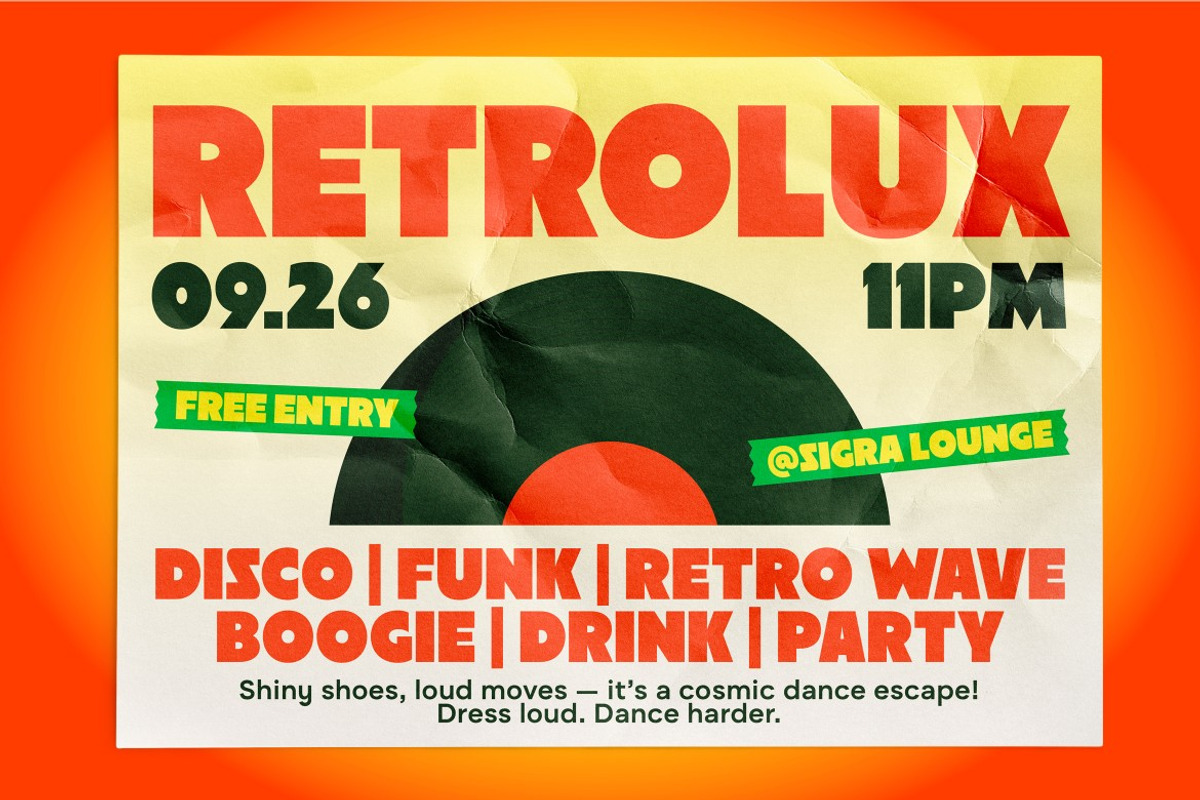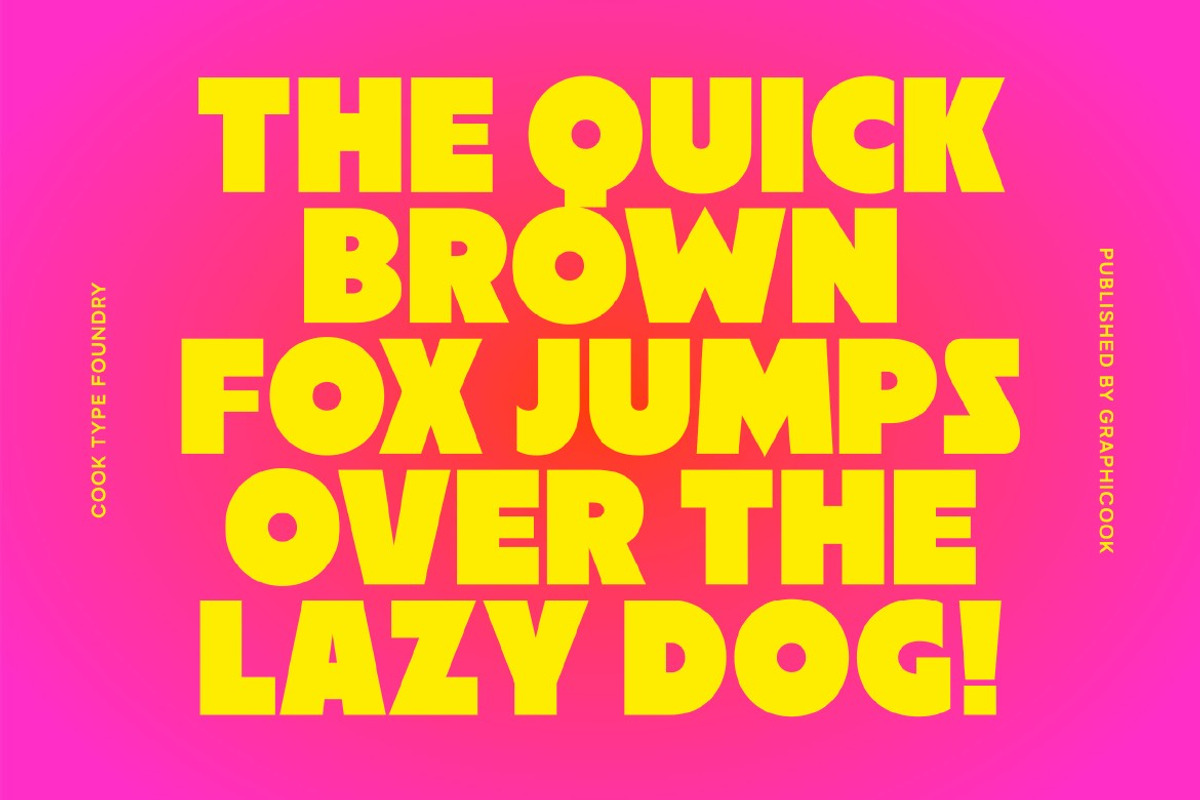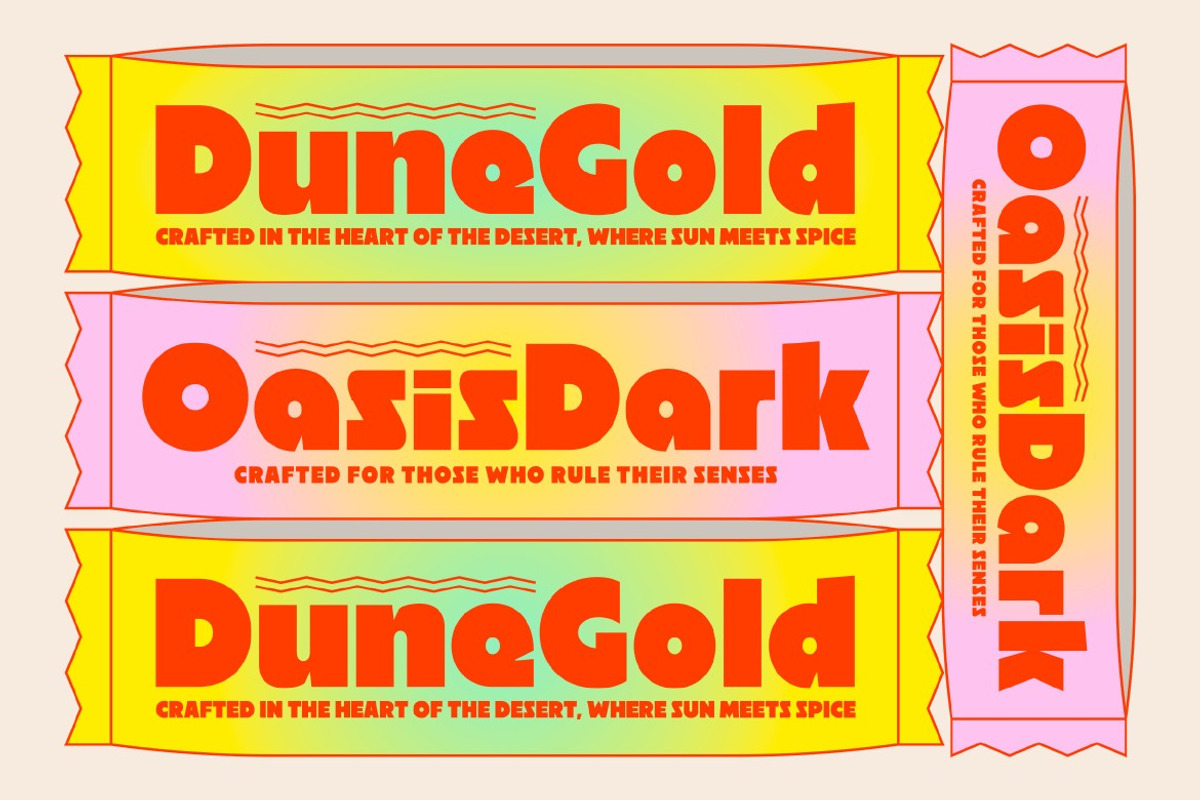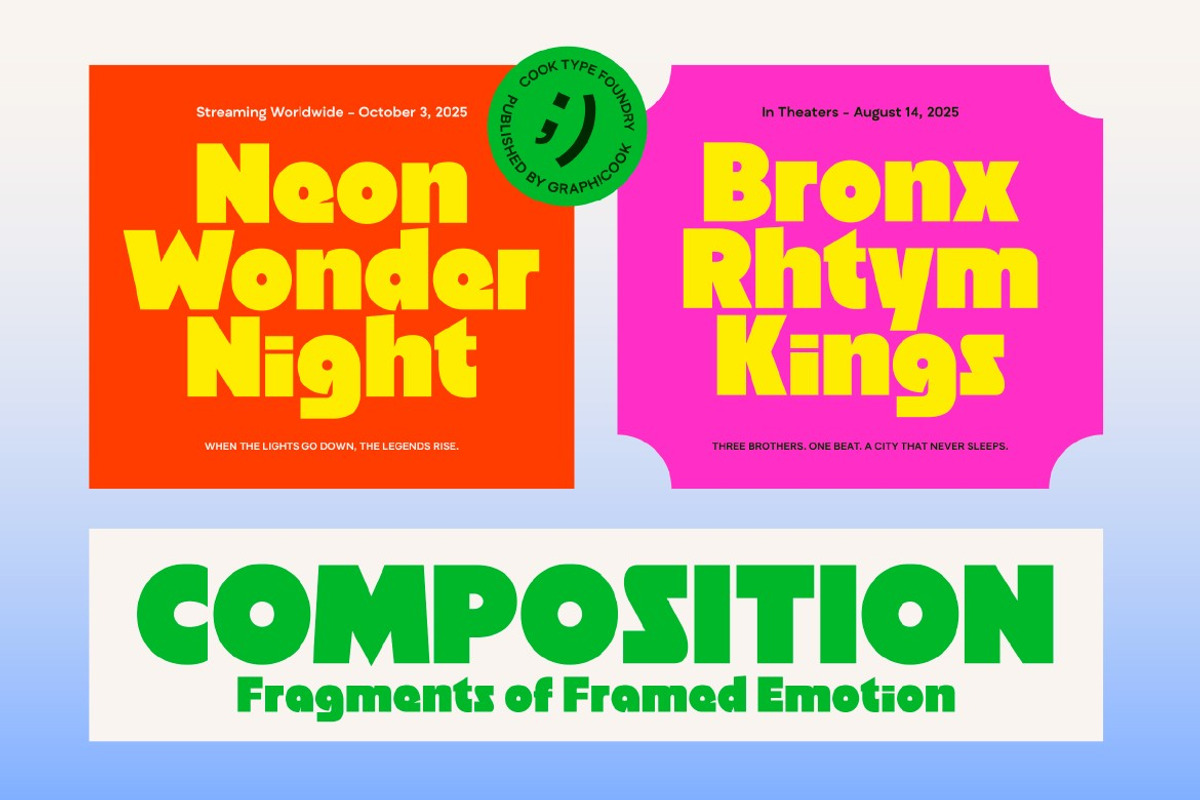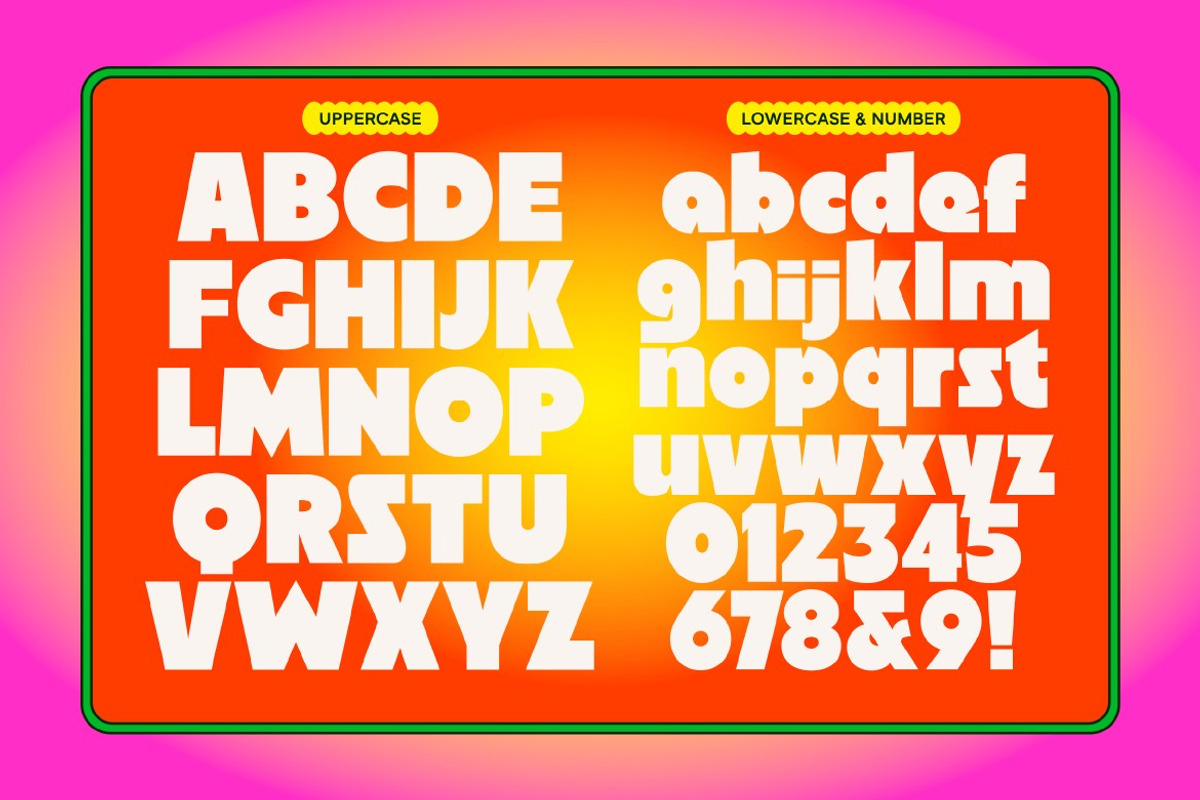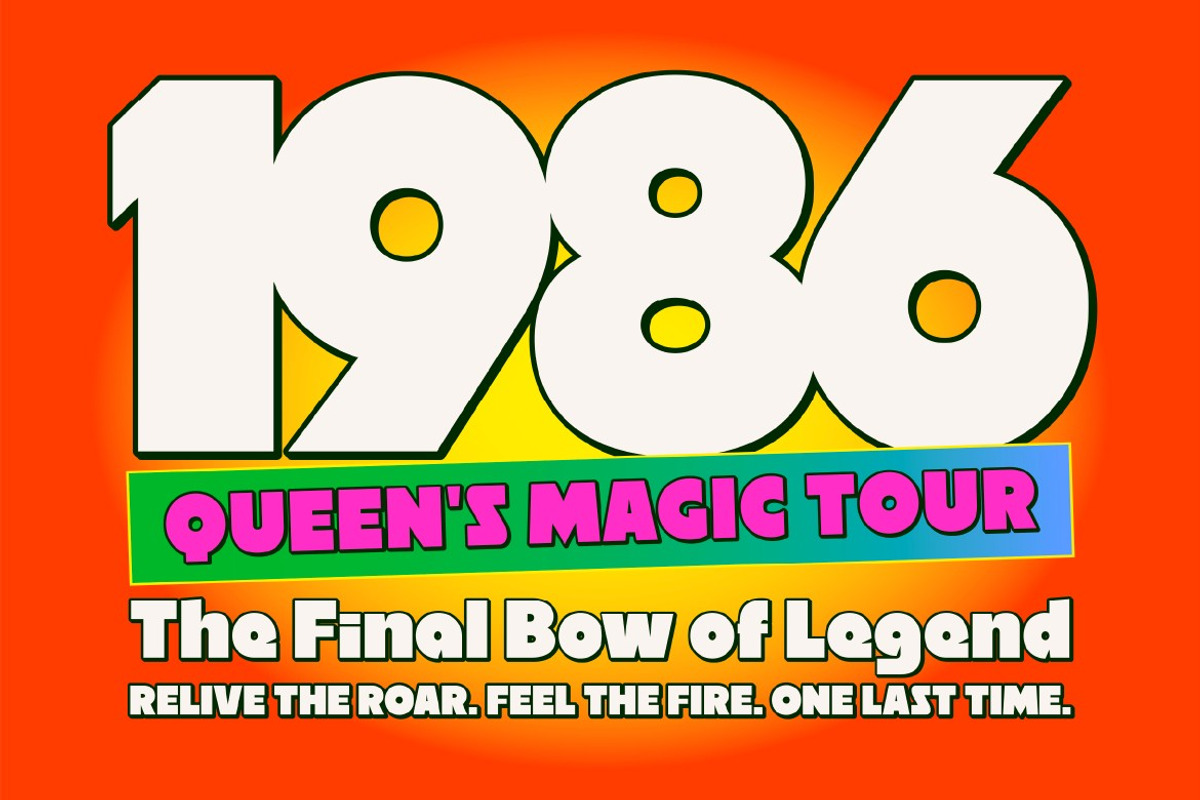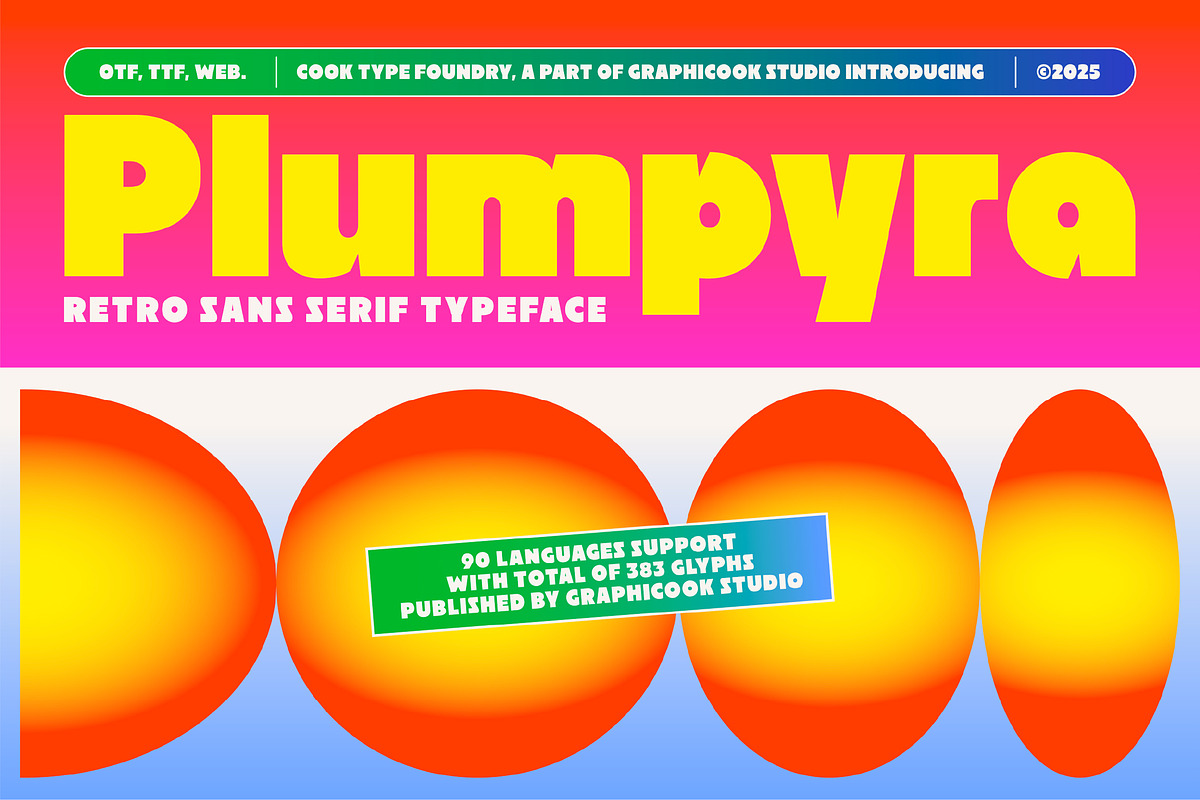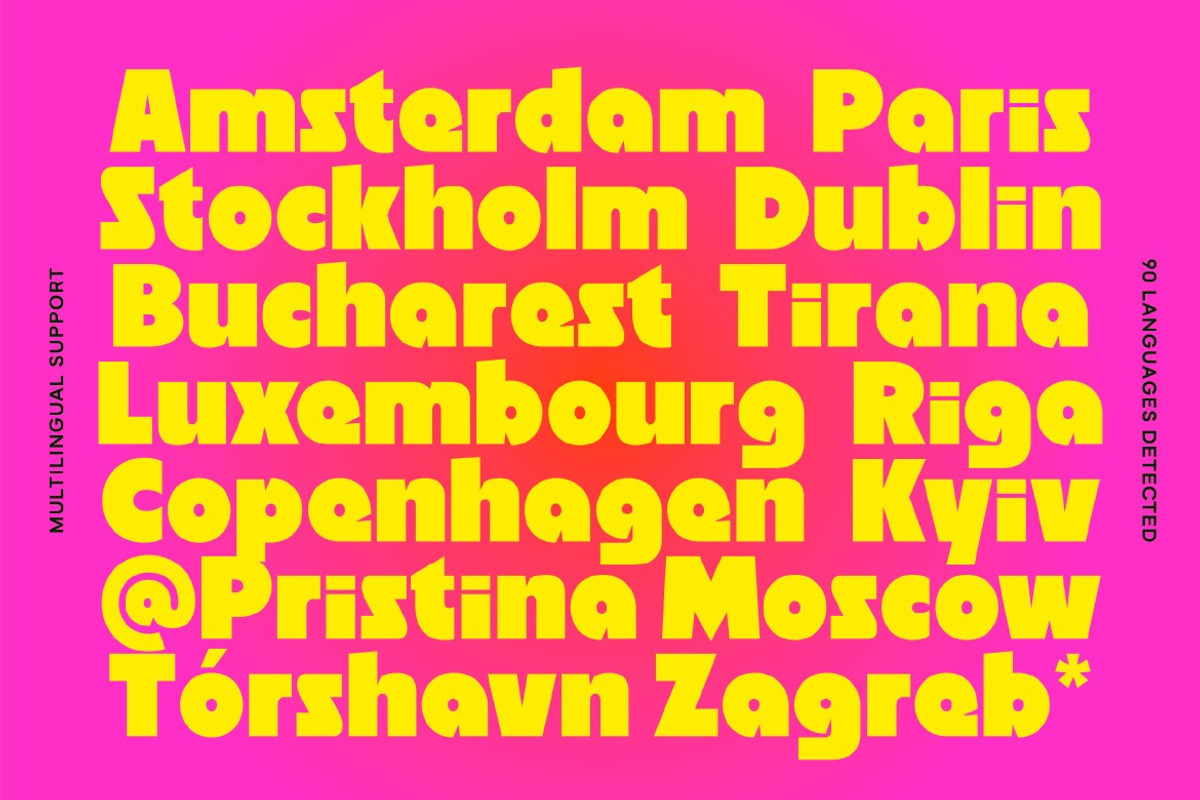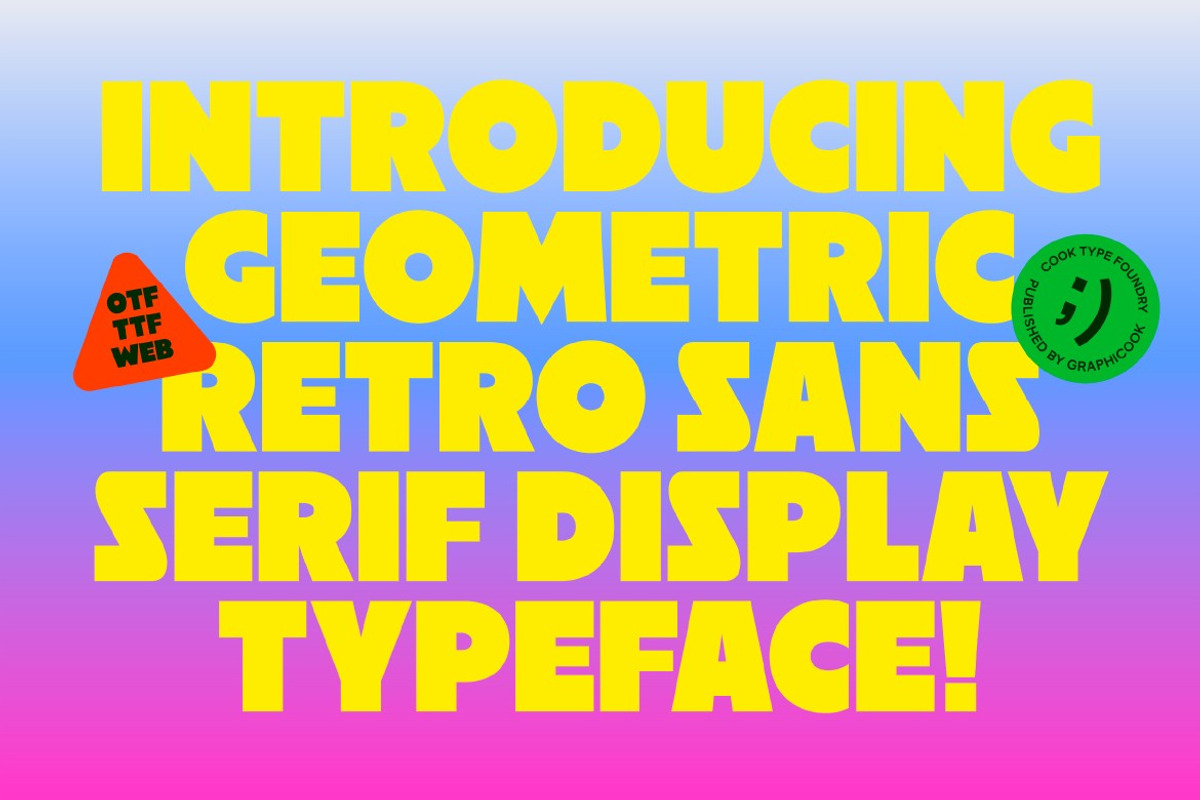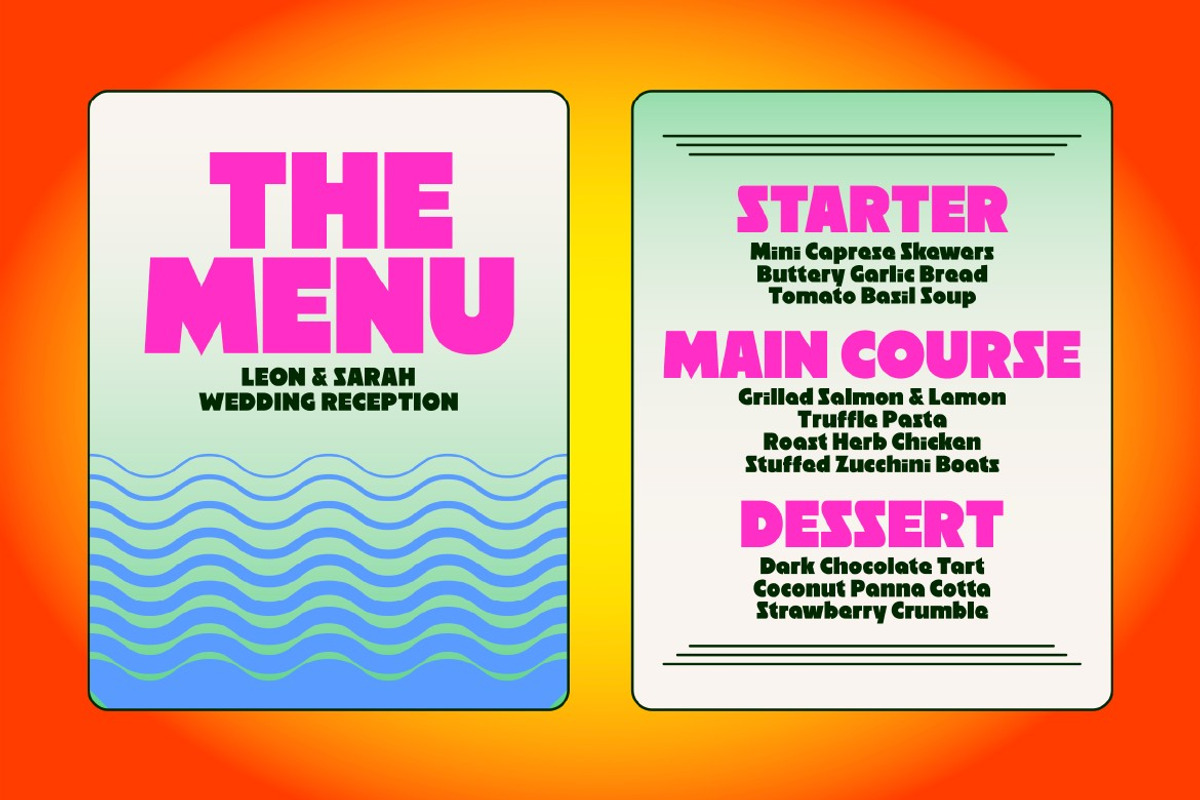
Plumpyra
Plumpyra is a bold geometric font with symmetrical and precise forms that convey a professional, modern feel. Perfect for headlines, billboards, packaging, or any design requiring a clean, bold typeface.
It is perfect for headlines, logotypes, magazines, packaging, quotes, movies, games, cover albums, book covers, and flyers, it's a perfect solution for creating eye-catching designs that stand out in any context.